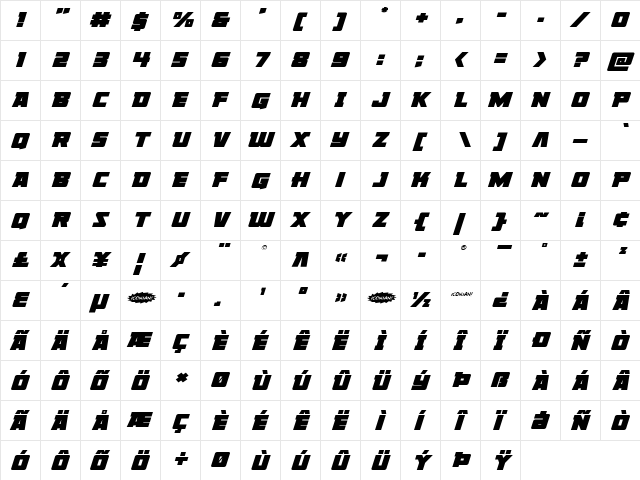
Liberty Legion Expanded Italic Expanded Italic
Design Context for Liberty Legion Expanded Italic Typeface
Liberty Legion Expanded Italic is a composed and adaptable typeface that performs quietly and consistently across a wide range of design contexts. The slanted form adds forward momentum and visual energy.
Pro Tip: Use Liberty Legion Expanded Italic for emphasis, pull quotes, and subheadings where its slanted energy can add rhythm to the layout.